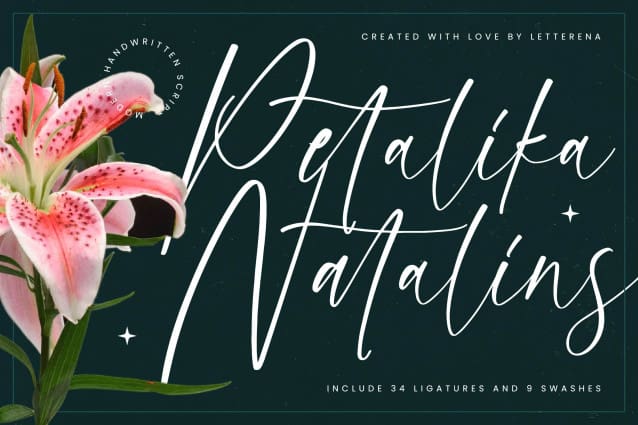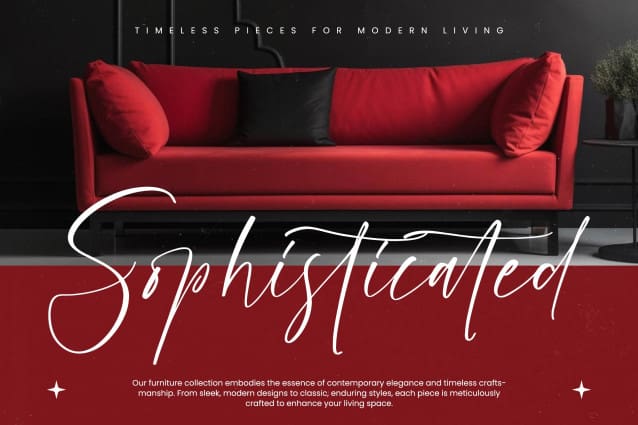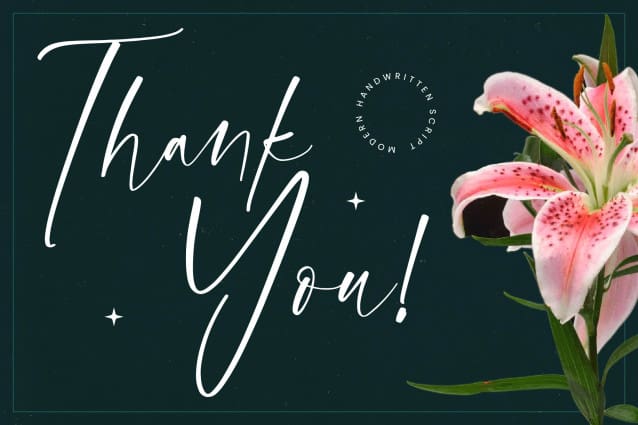
Petalika Natalins Font
Petalika Natalins Font – Modern Handwritten Script , from Letterena, is a Luxury Script font, suitable for any projects such as: logos, branding projects, homeware designs, product packaging, mugs, quotes, posters, shopping bags, t-shirts, book covers, name card, invitation cards, greeting cards, label, photography, watermark, special events, and all your other luxury and beautiful projects that need a Luxury Script taste.